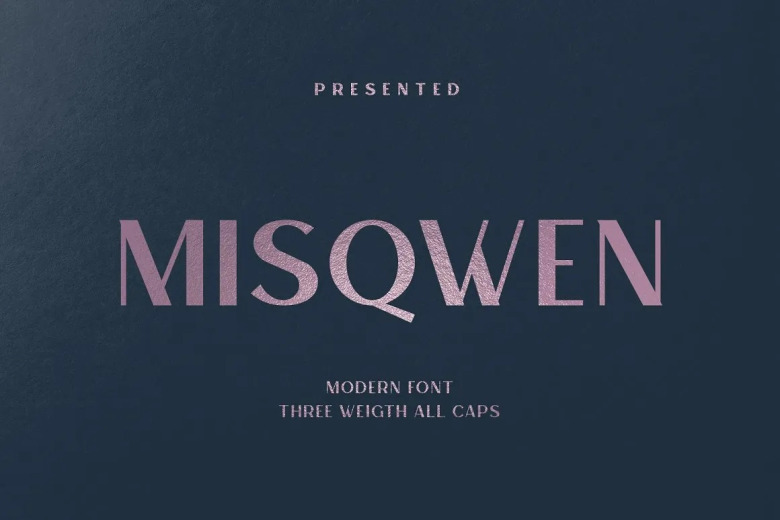
Misqwen Font
Misqwen Font is a modern sans serif typeface , It can easily be matched to an incredibly large set of projects, so add it to your creative ideas and notice how it makes them stand out! This bundle features strong, confident and powerful typefaces designed to work great with sports logos, club branding, apparel applications, labels and more.
Misqwen Sans Serif Font